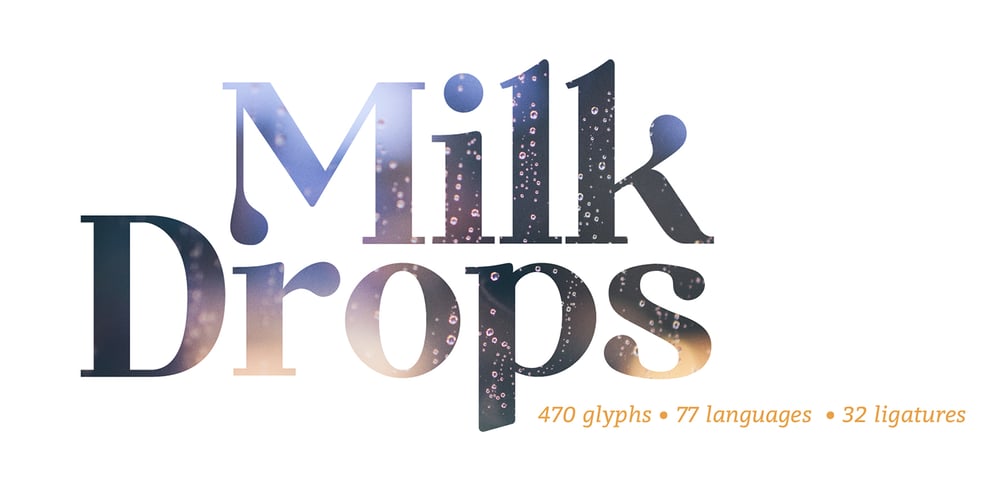
Milk Drops Font Family was designed by Adam Celeban and published by Duck Soup Design. Milk Drops contains 1 styles and family package options. Milk Drops is a semi-casual-feeling cross between a didone and slab serif display font. Elegant, flourishy, whimsical and bold, as much as one font can be any or all of those things! It has highly contrasting weights, but not so much to take itself too seriously or risk legibility. Playfully, it entertains the teardrop motif wherever it can – in expected areas like the descender of a “y” and the ascender of an “f”, but also in some whimsical flourishes. Many of the uses of the teardrop motif are implemented on the terminals and ears where many old prints may have suffered from bleed of ink – answering a “what if” question like “what if those accidental bleeds were designed on purpose?” or “what if a font were designed as though it was already seen through blurry eyes?” Milk Drops also features stencil-like open counters and lots of ligatures (32). Note also, it has some super-nerdy additions like symbols for Bitcoin, Pilcrow, Interrobang and Irony Mark. Language Support Milk Drops is highly versatile – with an impressive count of 470 glyphs, it can accommodate up to 78 latin-based languages.